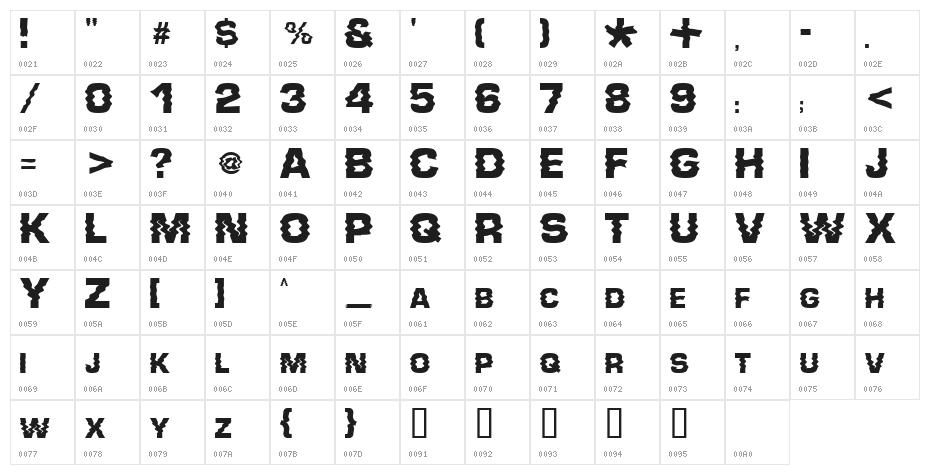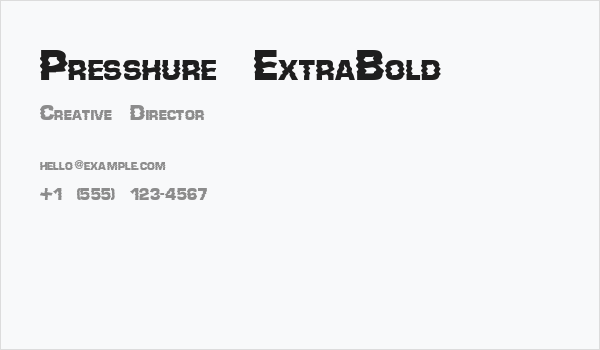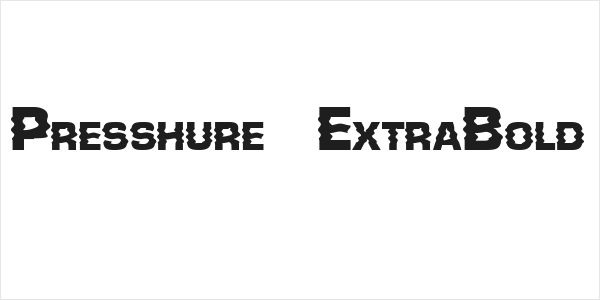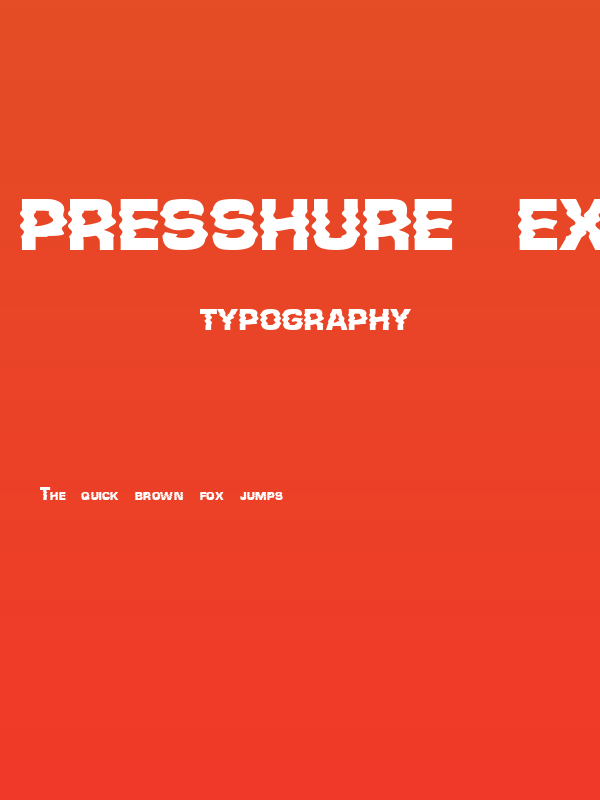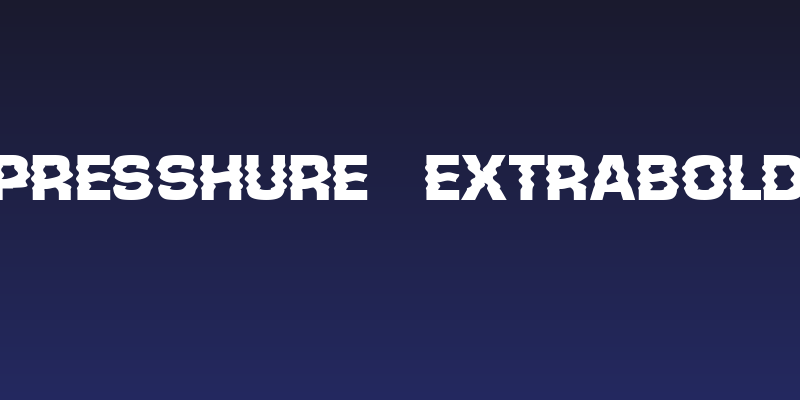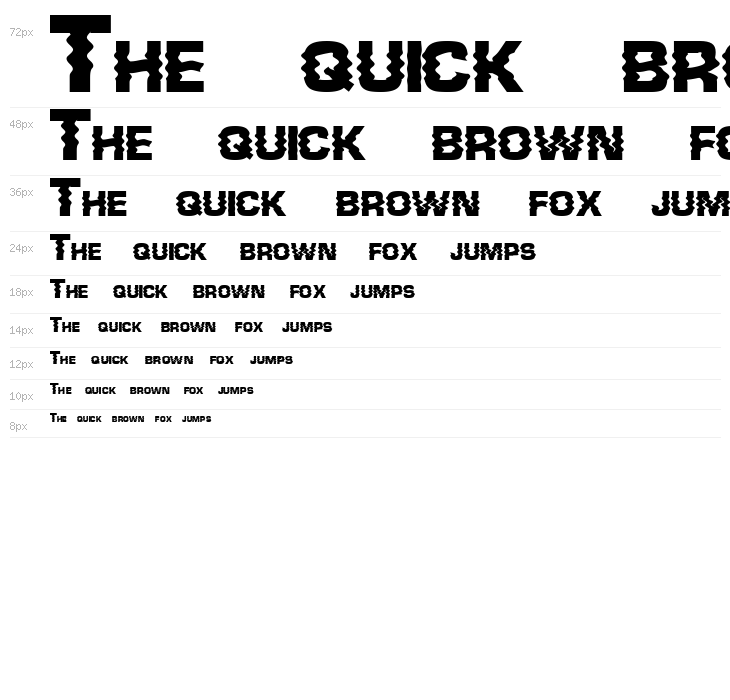
Presshure ExtraBold Font
Presshure ExtraBold Description
This font features a bold and impactful design with a strong presence. The characters are heavily stylized with unique, jagged edges that create a sense of movement and energy. The uppercase and lowercase letters maintain a consistent weight, contributing to a cohesive look. The numbers and special characters follow the same design principles, ensuring uniformity across all elements. This font's distinct style makes it suitable for attention-grabbing headlines or creative projects that require a bold statement.
| Proposed Projects | Ideal for posters, album covers, branding, and any project needing a bold, dynamic look. |